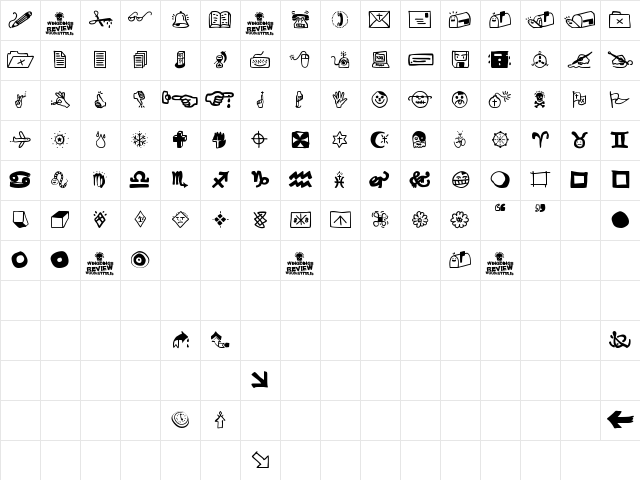
Wingding Review Regular
Designer: Woodcutter Manero
Design Context for Wingding Review
Wingding Review is a composed and adaptable typeface that performs quietly and consistently across a wide range of design contexts.